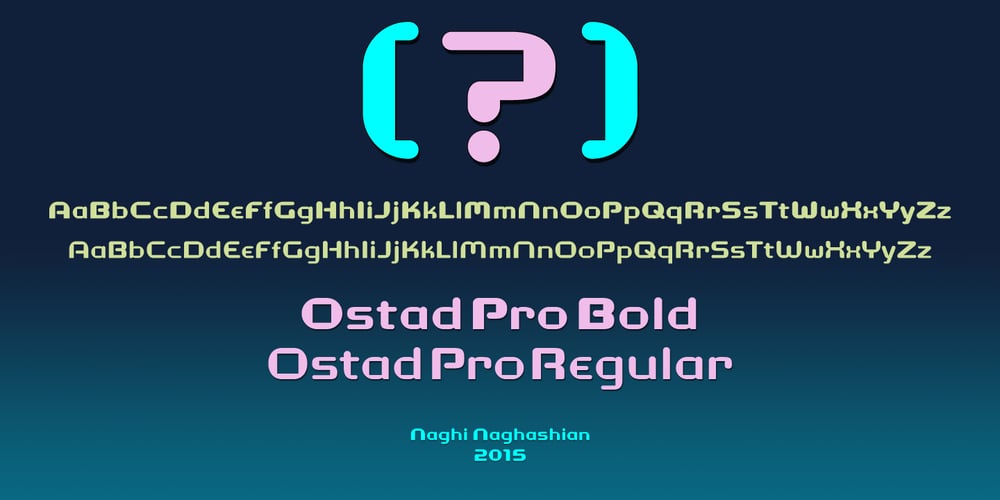
Ostad Pro Font Family was designed by Naghi Naghashian and published by Naghi Naghachian. Ostad Pro contains 2 styles and family package options. Ostad Pro is designed by Naghi Naghashian. It is a headline font, as a modern interpretation of classic Sans Serif Roman characters in 2 weights: Regular and Bold. The character set of this Font family supports most western languages including: Afrikaans, Basque, Breton, Catalan, Danish, Dutch, English, Finnish, French, Gaelic, German, Icelandic, Indonesian, Irish, Italian, Norwegian, Portuguese, Sami, Spanish, Swahili and Swedish. There are 17 additional symbol characters: euro, litre, estimated, omega, pi, partialdiff, delta, product, summation, radical, infinity, integral, approxequal, notequal, lessequal, greaterequal, and lozenge. It also includes the characters necessary to support the following central European languages: Croatian, Czech, Estonian, Hungarian, Latvian, Lithuanian, Polish, Romanian, Serbian (Latin), Slovak, Slovenian and Turkish.